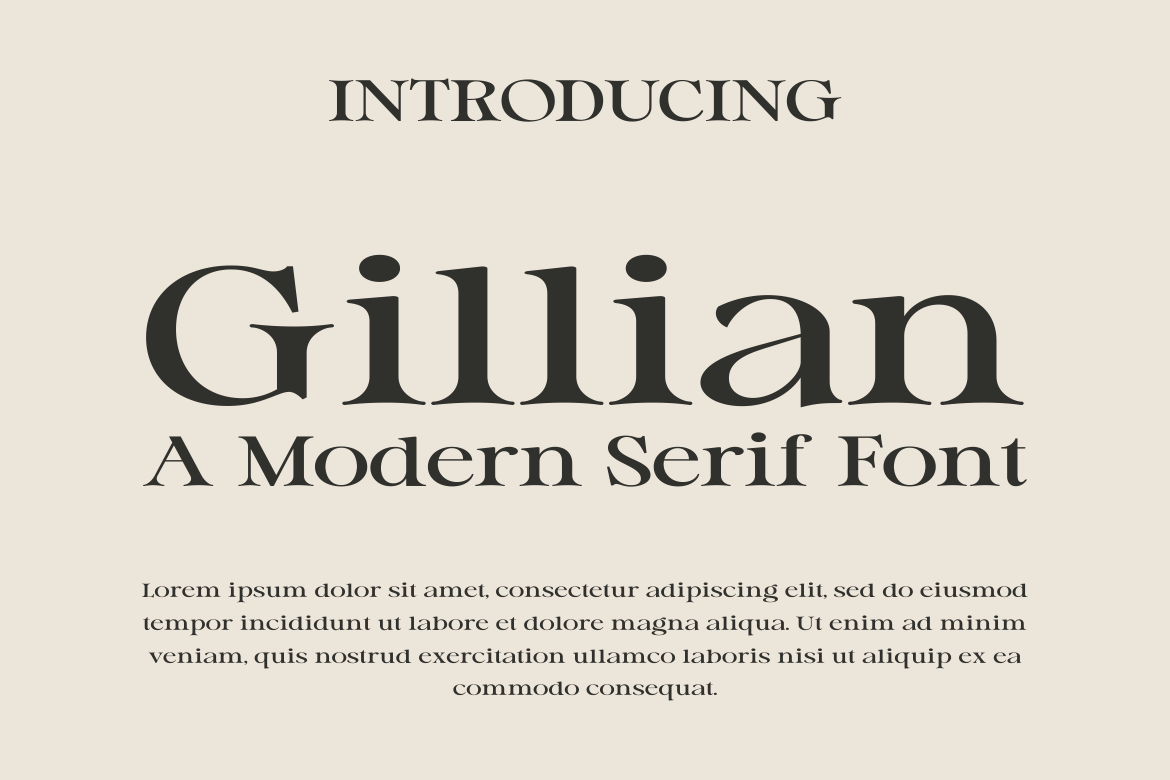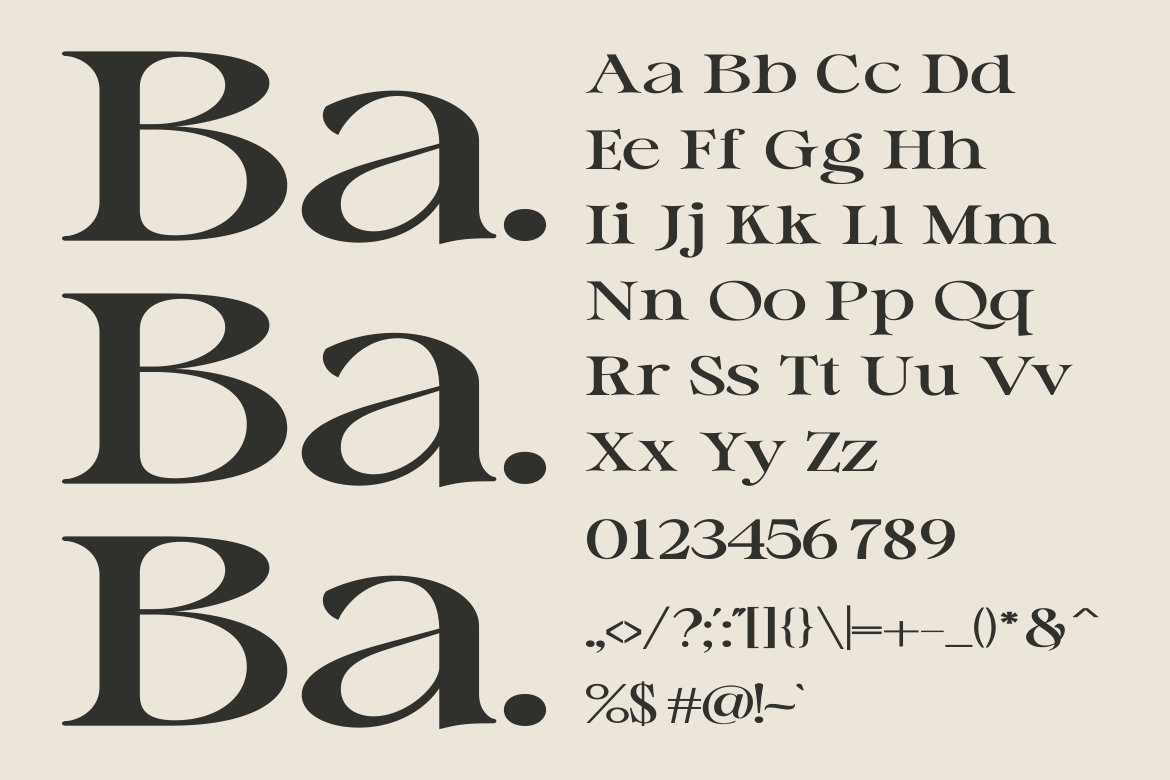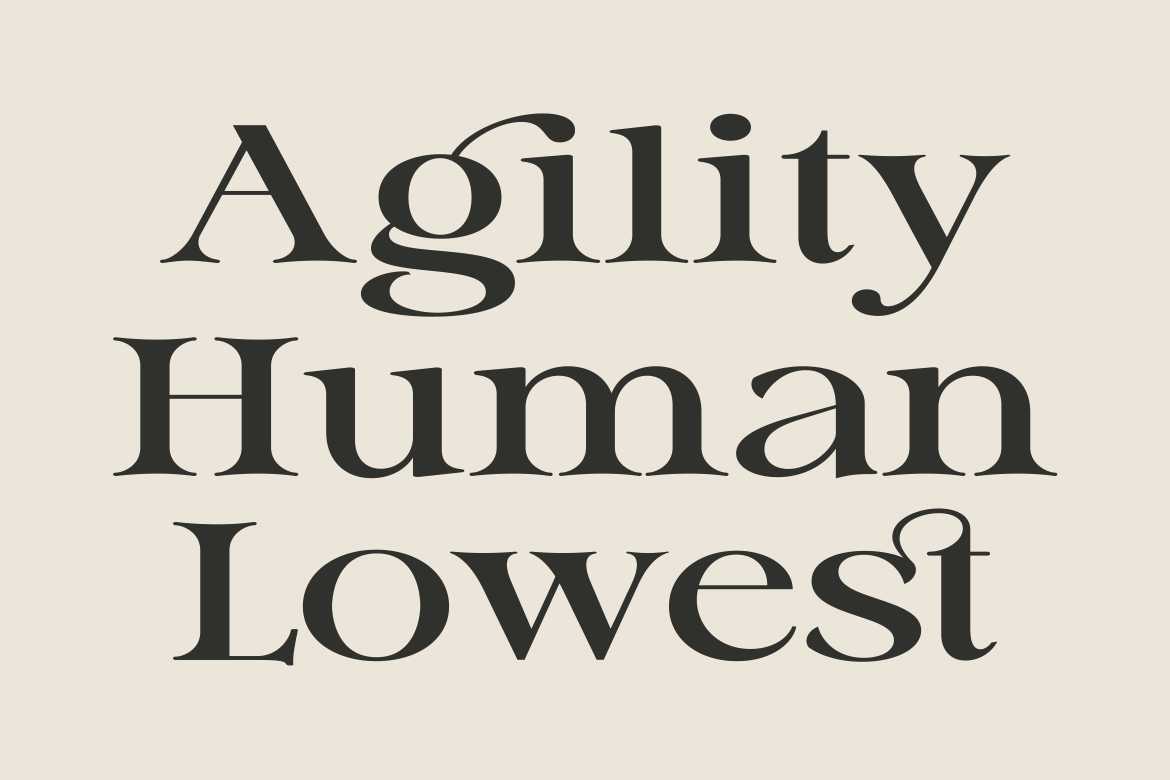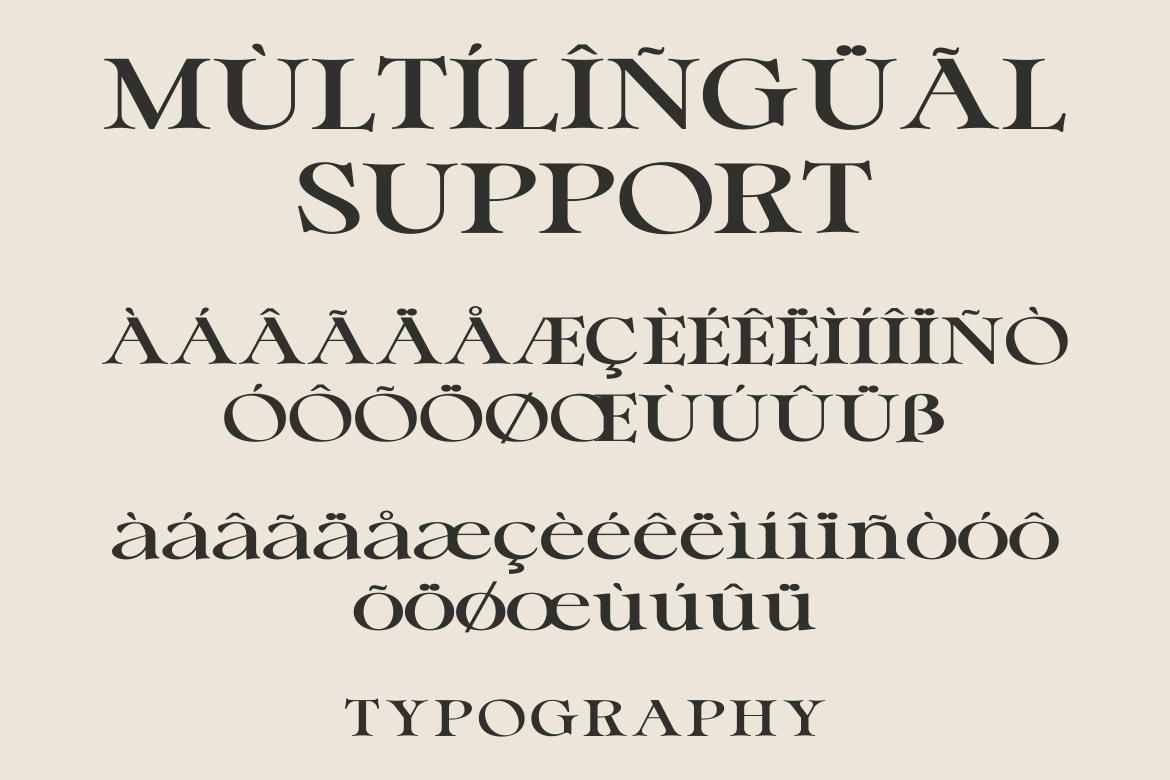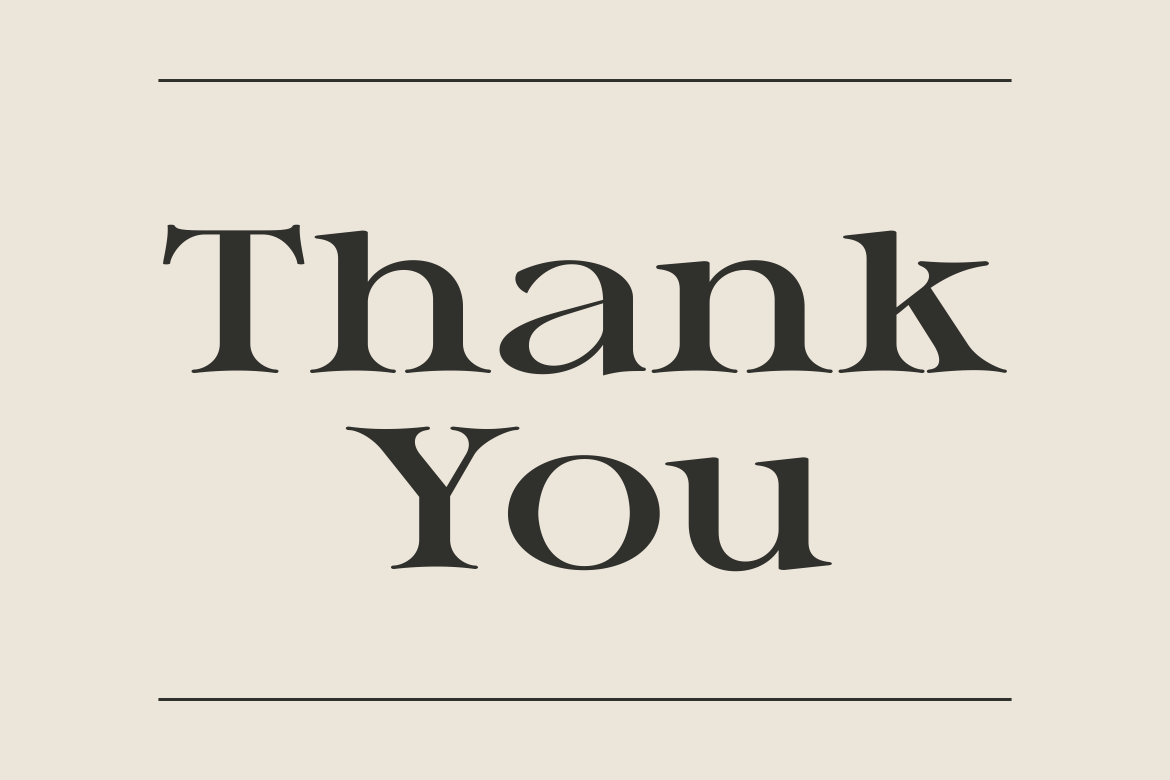
Introducing our new product Gillian Font - Modern Font Gillian Font** - Modern Font is a bold and authentic display font. The font is suitable for any branding project like logo, Template Design, Product and many more. outstanding in a wide range of contexts.